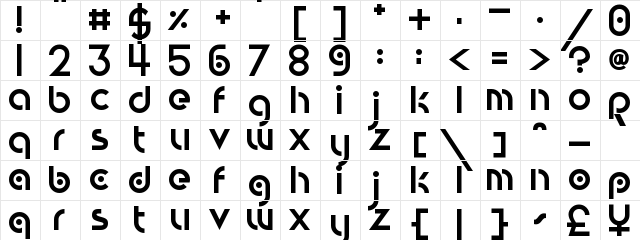
Circular Abstracts Regular
| Designer | Darrell Flood |
Design Context for Circular Abstracts Typeface
Circular Abstracts takes a measured approach to typography — its balanced proportions and neutral character make it a reliable workhorse for both digital and print work.